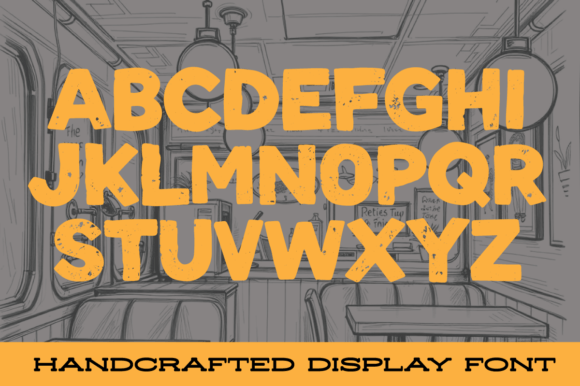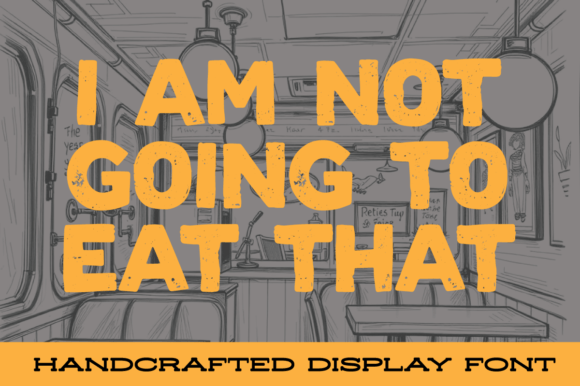
The Funky Meatloaf Font: A Bold and Playful Addition to Your Design Arsenal
Ah, the elusive perfect font. You know, that one design element that can make or break a project. I recall working on a party invitation design for a friend’s milestone birthday bash. The theme was fun, vibrant, and playful, but I was struggling to find a font that matched the energy. That’s when I stumbled upon the Funky Meatloaf font. It was love at first sight! 💕
This bold and distressed font has been a game-changer for my designs, and I’m excited to share its awesomeness with you. Funky Meatloaf is perfect for big, bold, and fun designs, such as posters, party invites, and more. Its soft, rounded edges and distressed vintage texture give it a unique personality that’s hard to ignore.
• Bold and eye-catching: Funky Meatloaf is perfect for making a statement. Its bold design ensures your text won’t go unnoticed.
• Distressed texture: The vintage texture adds a layer of depth and character to your designs.
• 🌈 Versatile: This font can be used for a wide range of projects, from posters and flyers to party invites and social media graphics.
⚠️ While Funky Meatloaf is an amazing font, it’s not without its limitations. For instance, the distressed texture can make it a bit tricky to read in smaller sizes. Additionally, the font’s bold design might not be suitable for body text or more formal designs.
🤔 Some users might find that the font’s rounded edges can make it appear less crisp on certain backgrounds or in certain digital formats.
While the true story behind Funky Meatloaf’s creation is unknown, it’s easy to imagine a designer who was inspired by the raw energy of street art and the playfulness of vintage typography. Perhaps they wanted to create a font that would add a dash of fun and personality to any design project. Whatever the inspiration, Funky Meatloaf is a true gem in the world of typography.